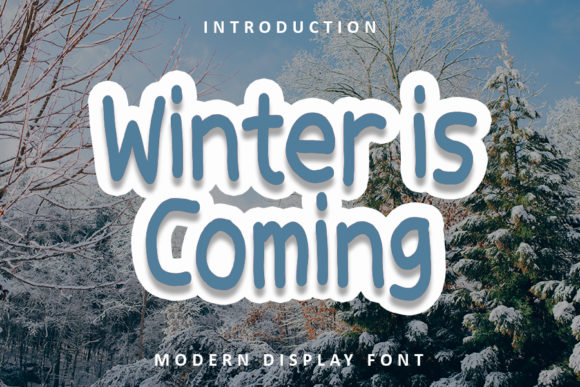
Winter is Coming Font
Winter is Coming is a simple and neat display font that balances trendiness with readability. Itβs designed to be versatile, making it suitable for a wide range of creative and professional applications. Whether you're crafting digital content, designing presentations, or creating greeting cards, this font offers a clean and modern aesthetic that can elevate your work.
Why Winter is Coming Matters to Different Audiences
The relevance of Winter is Coming varies depending on the user's role and goals. For some, it's about aesthetics and style, while for others, it's about functionality and efficiency. Understanding how different audiences may value this font helps in choosing the right tool for the job.
Beginners and Hobbyists: A Starting Point
For beginners and hobbyists, Winter is Coming serves as an accessible entry point into the world of typography. Its simplicity means there's less to learn, allowing users to focus on creativity rather than technical details. This font is ideal for those who enjoy experimenting with design without being overwhelmed by complex tools.
- Perfect for personal projects like greeting cards or social media posts.
- No need for advanced typographic knowledge.
Professionals and Creators: Style Meets Functionality
Professionals and creators often look for fonts that are both stylish and functional. Winter is Coming meets these needs by offering a modern look that doesn't compromise on legibility. Designers working on branding or marketing materials can benefit from its clean lines and balanced proportions.
Its versatility makes it suitable for both print and digital formats, ensuring consistency across different platforms. This is especially important for those who create content for multiple channels, such as social media, websites, and brochures.
Business Owners and Marketers: Branding and Consistency
For business owners and marketers, Winter is Coming can play a key role in brand identity. A consistent and appealing font helps reinforce brand recognition and professionalism. It's particularly useful for creating logos, website headers, and promotional materials.
When selecting a font for branding, factors like ease of use, reliability, and long-term usefulness become crucial. Winter is Coming offers a reliable choice that maintains its quality over time, making it a valuable asset for ongoing marketing efforts.
Educators and Freelancers: Flexibility and Learning Value
Educators and freelancers often require fonts that are flexible and adaptable to various project types. Winter is Coming provides this flexibility, allowing users to apply it across different contexts without sacrificing clarity or style.
For educators, the font's simplicity can aid in teaching design principles to students. Its clean structure makes it an excellent example for discussing typography fundamentals. Freelancers, on the other hand, can use it to meet client demands efficiently while maintaining a professional appearance.
Consumers and End Users: Aesthetic Appeal and Practicality
Consumers who use fonts for personal or commercial purposes may prioritize aesthetic appeal and practicality. Winter is Coming delivers on both fronts, offering a visually pleasing option that works well in real-world scenarios.
Whether used in product packaging, signage, or digital content, the font's modern look can enhance the overall presentation without being distracting. Its readability ensures that the message remains clear and effective, which is essential for end users looking for both style and substance.
Choosing the Right Font for Your Needs
Deciding whether Winter is Coming is the right choice depends on your specific needs and priorities. Consider the following factors when evaluating fonts:
- Ease of Use: How easy is it to integrate into your workflow?
- Cost: Is the font free or paid, and does it offer good value?
- Quality: Does it maintain its appearance across different sizes and formats?
- Flexibility: Can it be adapted to various design styles and mediums?
- Presentation: Does it enhance the visual impact of your work?
- Learning Value: Does it help you develop new skills or understanding?
- Commercial Value: Is it suitable for professional or business use?
- Long-Term Usefulness: Will it remain relevant and useful over time?
Practical Examples for Different User Types
Beginners: Use Winter is Coming to create personalized greeting cards or social media graphics. Its simplicity allows for quick experimentation and learning.
Professionals: Incorporate it into branding materials, such as logo designs or website headers, to add a touch of modernity and elegance.
Business Owners: Utilize it for marketing campaigns, ensuring a consistent and appealing visual identity across all platforms.
Freelancers: Apply it to client projects, balancing creativity with practicality to meet diverse design needs.
Consumers: Choose it for personal projects or small-scale commercial use where style and readability are equally important.
By considering your specific goals and requirements, you can determine whether Winter is Coming aligns with your needs. Whether you're just starting out or looking to refine your design skills, this font offers a versatile and stylish solution that can enhance your creative output.